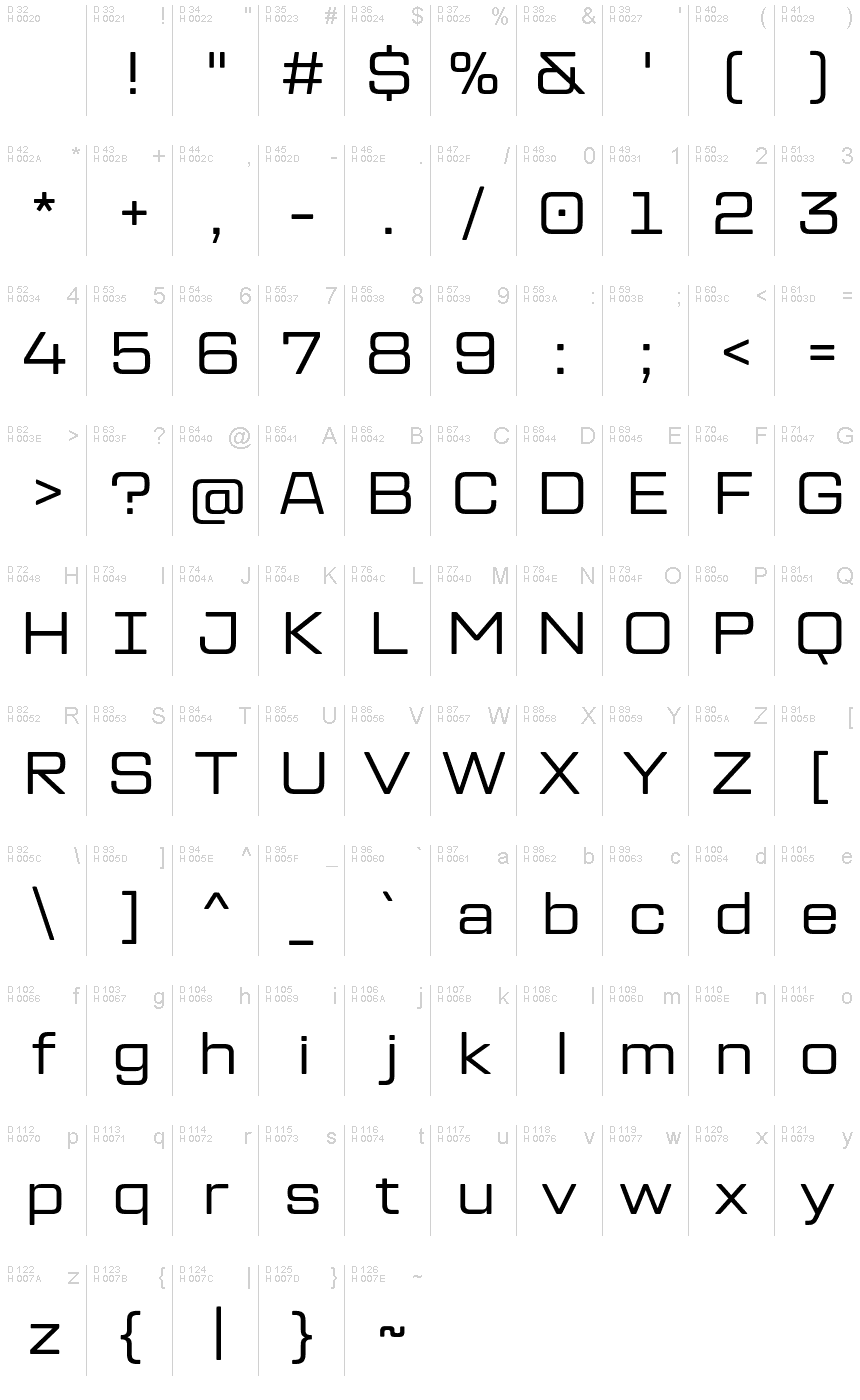
TT Lakes Neue Trl Ext Rg
TT Lakes Neue Ext Rg is a stunning sans serif typeface with a semi-light font weight and expanded width. Created by the renowned TypeType Foundry, this font boasts modern and clean lines perfect for a wide range of design projects. Its unique style makes it perfect for branding, logos, headlines, posters, and packaging designs. Its legibility makes it ideal for large print materials such as billboards, banners or outdoor advertising. With its versatile nature and contemporary vibe, TT Lakes Neue Ext Rg can add an impressive touch to any project you have in mind!